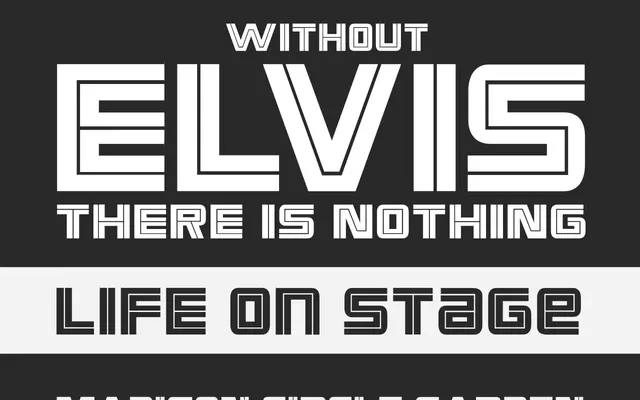
CA Elvis in Stereo
Cape Arcona · Raymond Brekelmans
A single-weight display typeface drawn from the visual world of a 1972 live Elvis Presley album recorded at Madison Square Garden.
Designed by Raymond Brekelmans and inspired by the typographic character of the Elvis at Madison Square Garden era, this is a display face built for large-scale use. It ships in one style with 341 glyphs and covers Western and Central European encodings. Its decorative nature makes it unsuitable for body text but well-suited to poster headlines and music-adjacent editorial work.
The foundry classifies this as Display, and it is explicitly described as suitable for headlines and larger sizes only, with a single decorative style inspired by a 1972 live album cover aesthetic.